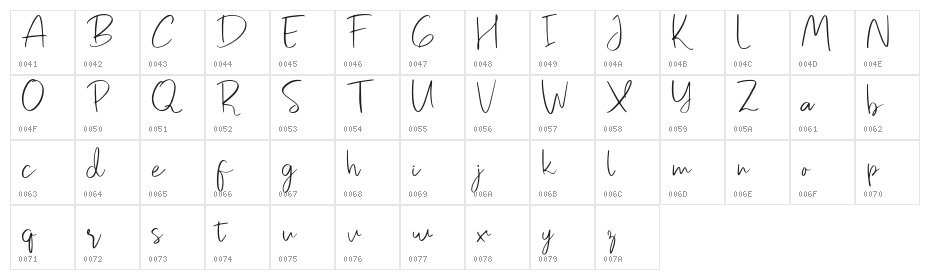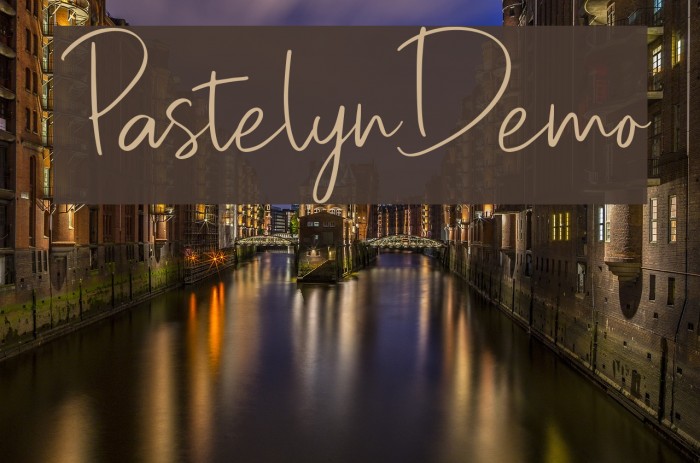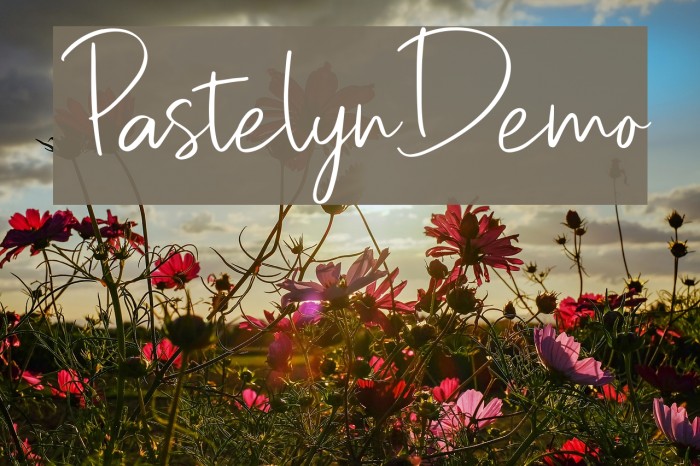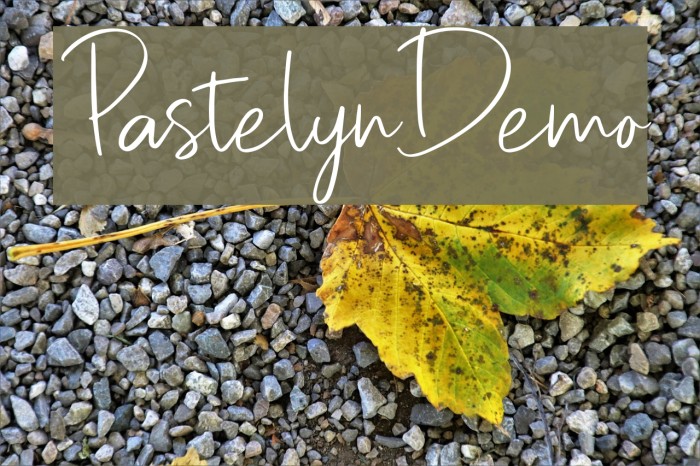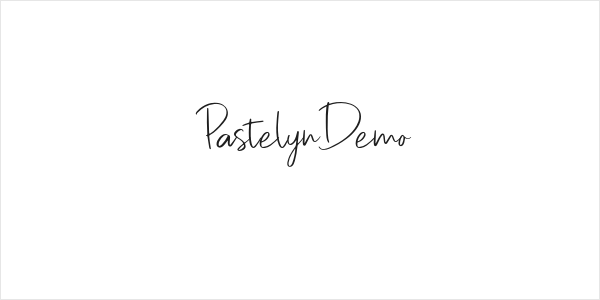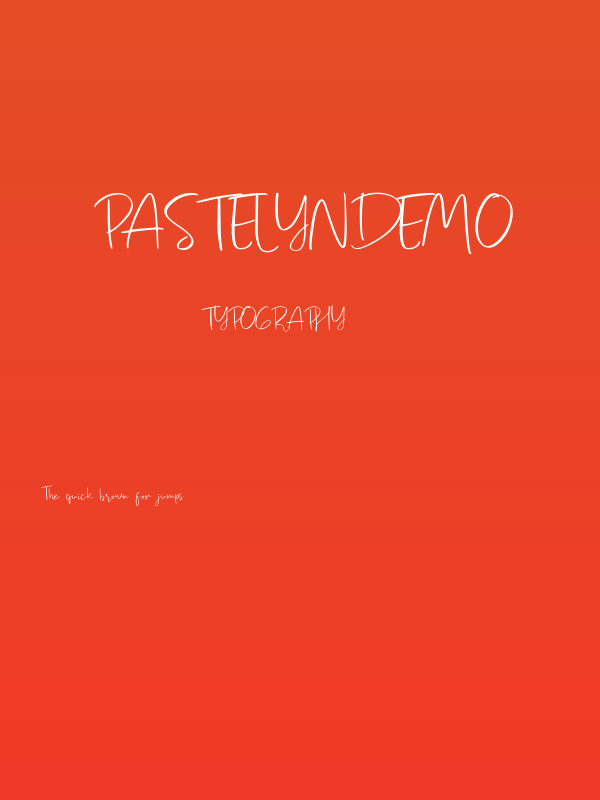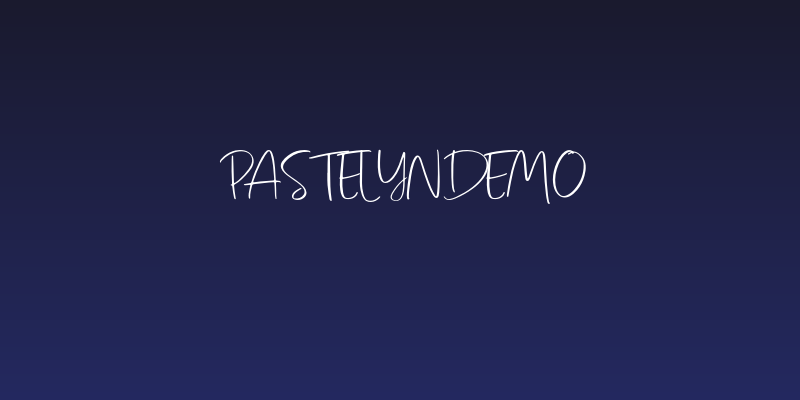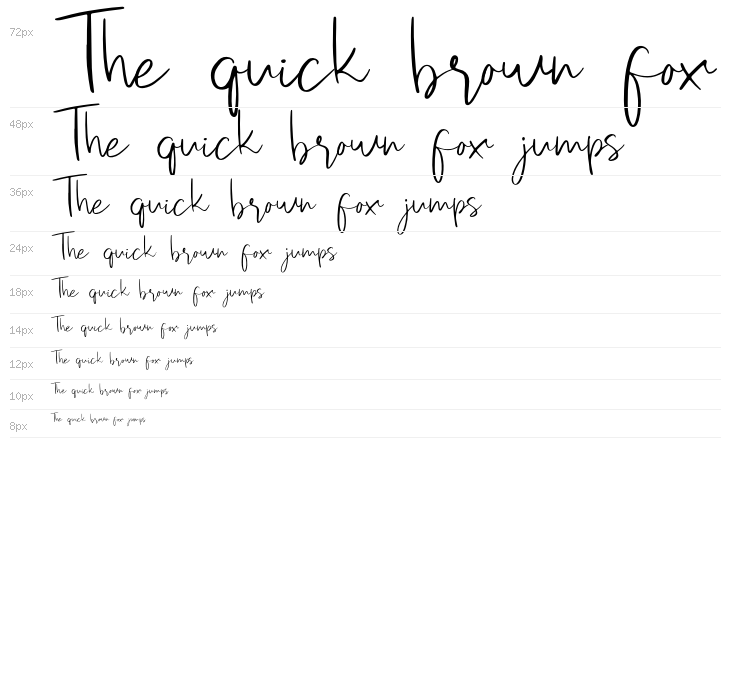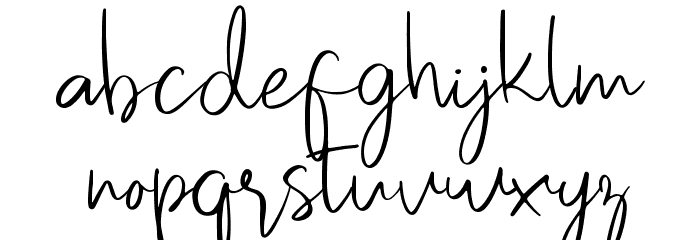
PastelynDemo Font
PastelynDemo Description
This font features a playful and whimsical handwritten style, characterized by its flowing and interconnected letterforms. The uppercase letters are tall and slender, with a slight slant that adds a dynamic feel. The lowercase letters maintain a consistent flow, with loops and curves that enhance its casual elegance. The strokes vary in thickness, providing a medium contrast that adds to its lively appearance. This font is ideal for projects that require a personal touch, such as invitations, greeting cards, and creative branding. Its unique style makes it stand out, offering a blend of modern and artistic flair.
| Use Case | Invitations, Greeting cards, Creative branding |
| Proposed Projects | Ideal for invitations, greeting cards, creative branding, and personal projects. |